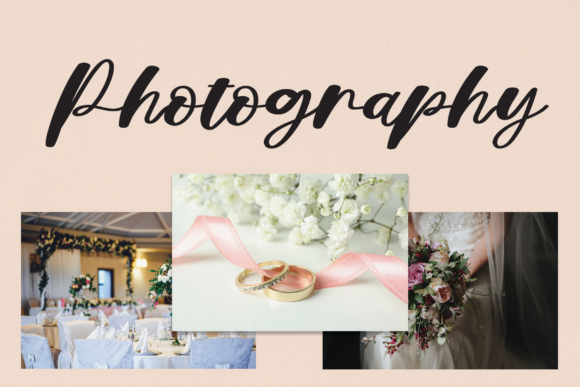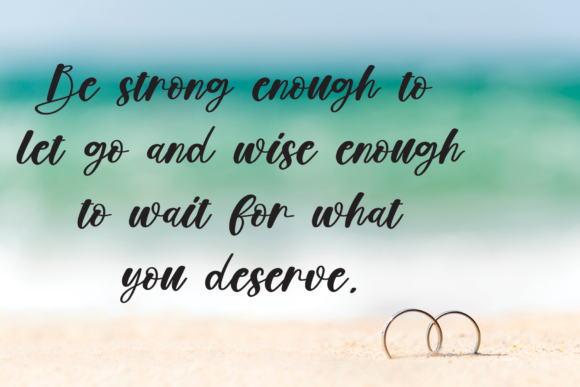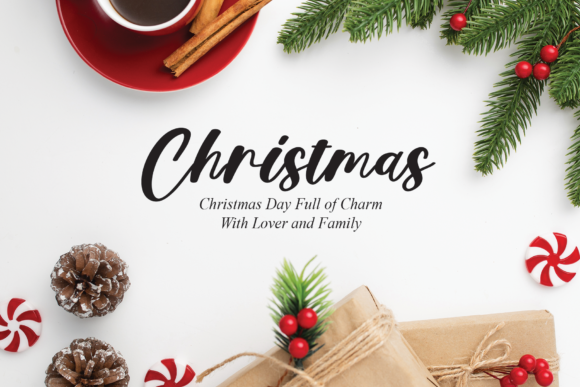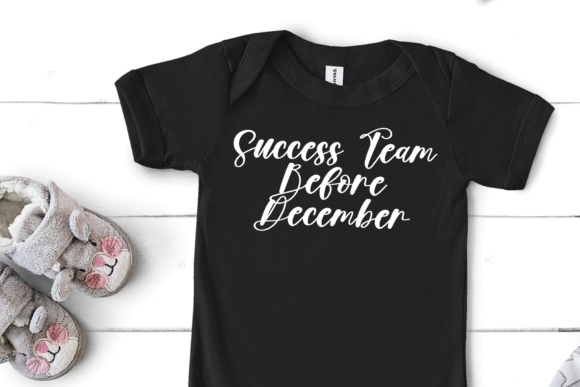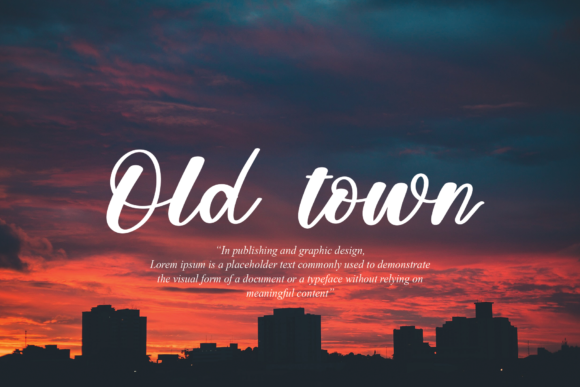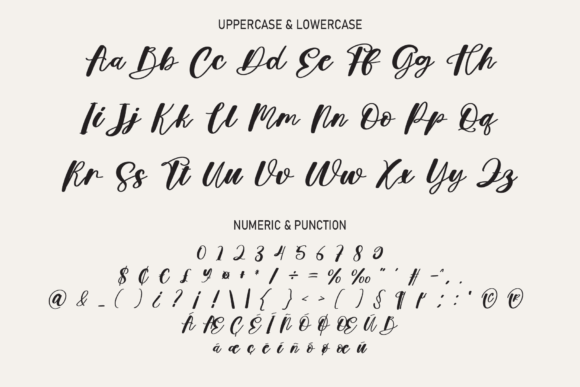
The Sweet Charm of Calligrapher Font: A Designer’s Delight
I’ll never forget the time I was working on a wedding invitation project, and my client asked for a font that was “romantic, elegant, and playful.” I scoured the internet, tried out dozens of fonts, but nothing seemed quite right. That was until I stumbled upon Calligrapher Font. This sweet and cursive handwritten font has been a game-changer for me, and I’m excited to share its charm with you! ✨
So, what makes Calligrapher Font so special? Here are a few things I love:
- ✨ Sweet and feminine: Calligrapher Font has a gentle, whimsical quality that’s perfect for projects that need a touch of romance.
- ✅ Highly versatile: This font works beautifully on a variety of design materials, from wedding invitations to branding, packaging, and more.
- 💫 Easy to read: Despite its cursive nature, Calligrapher Font is surprisingly legible, even at smaller font sizes.
Of course, no font is perfect, and Calligrapher Font has a few minor quirks:
- 🤔 Limited character set: While Calligrapher Font has a wide range of characters, it may not have every special character or glyph you need.
- ⚠️ May not be suitable for body text: Due to its cursive nature, Calligrapher Font may not be the best choice for longer blocks of text.
- Experiment with OpenType features, like swashes and ligatures, to add extra flair to your design.
The Story Behind Calligrapher Font
While the true story behind Calligrapher Font remains a mystery, it’s easy to imagine that it was created by a designer with a passion for handwriting and calligraphy. Perhaps they were inspired by the beautiful lettering of vintage wedding invitations or the elegant script of classic novels. Whatever the inspiration, Calligrapher Font is a true gem that brings a touch of romance and whimsy to any design.
| Is Calligrapher Font suitable for body text? | While Calligrapher Font is beautiful, it’s not ideal for longer blocks of text due to its cursive nature. |